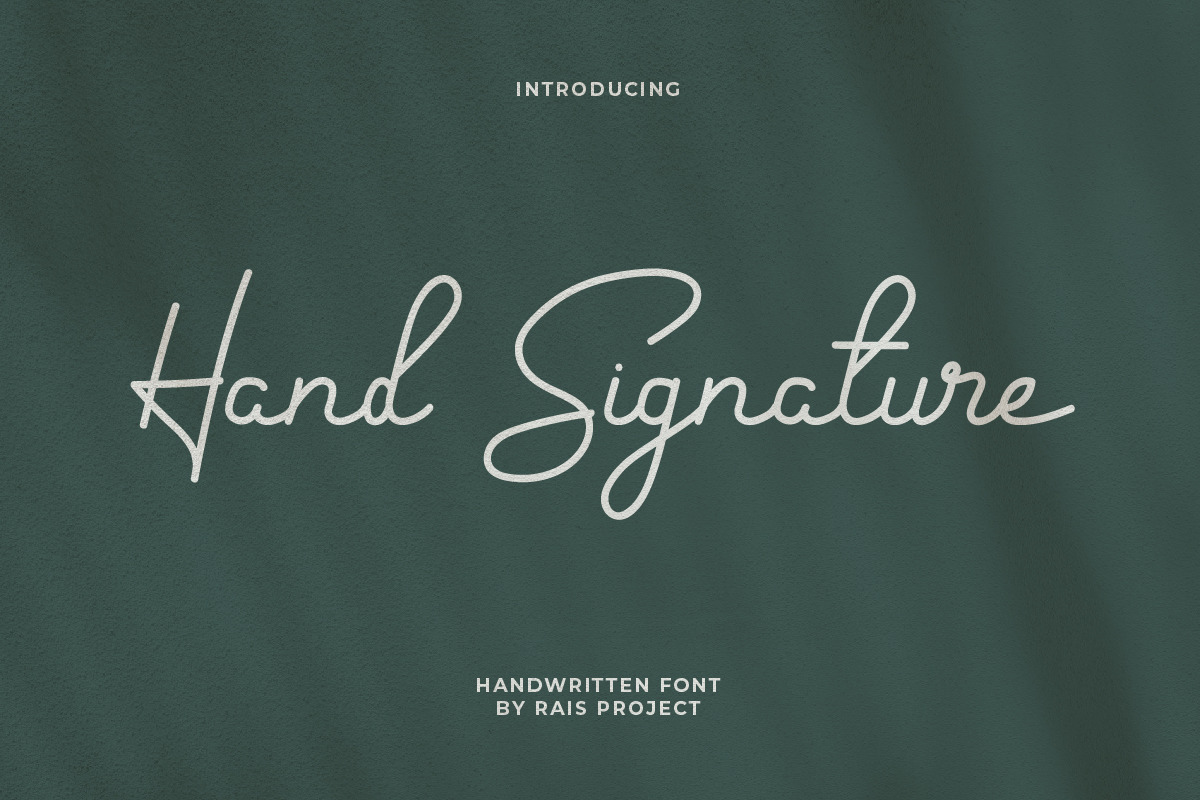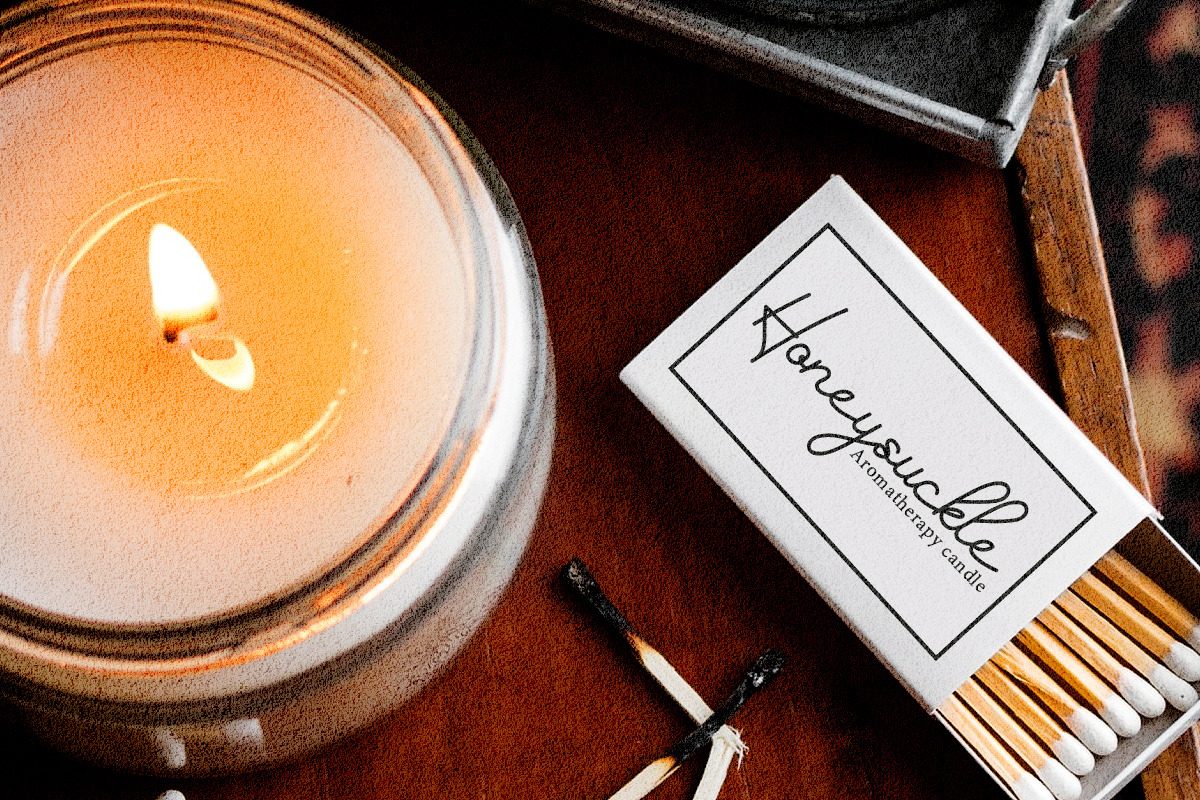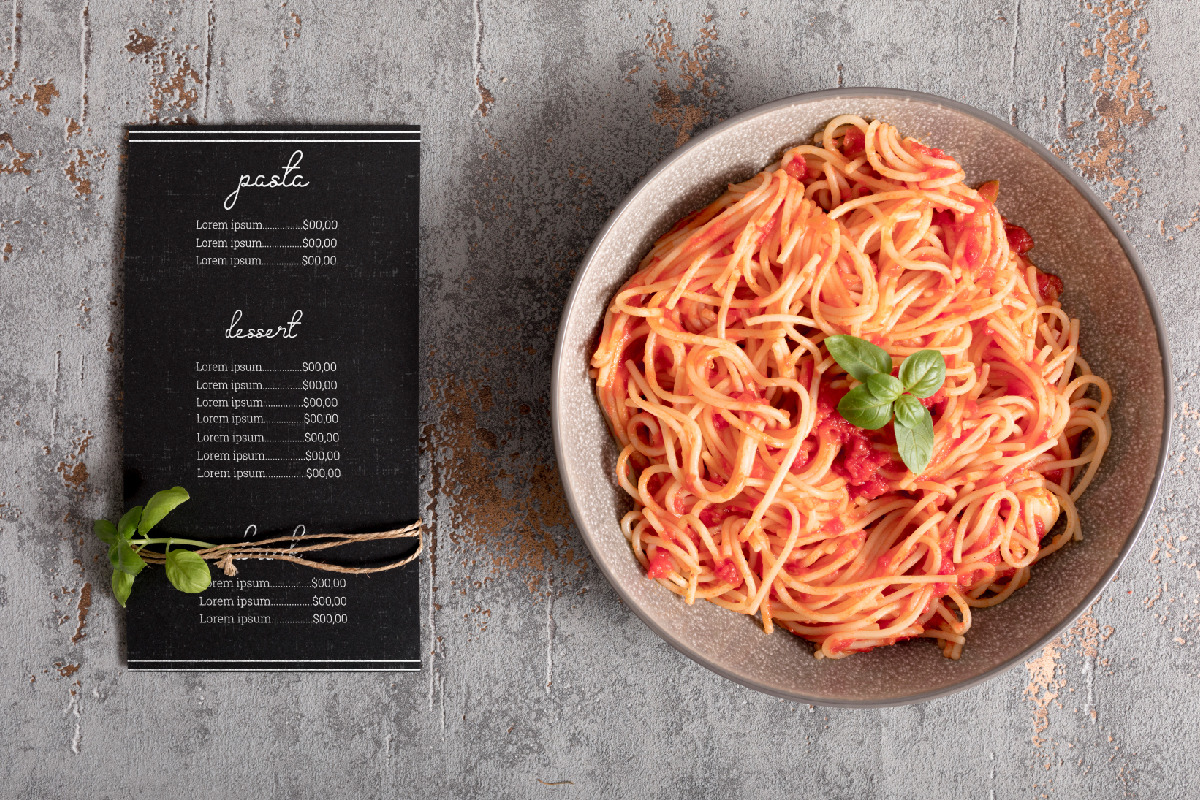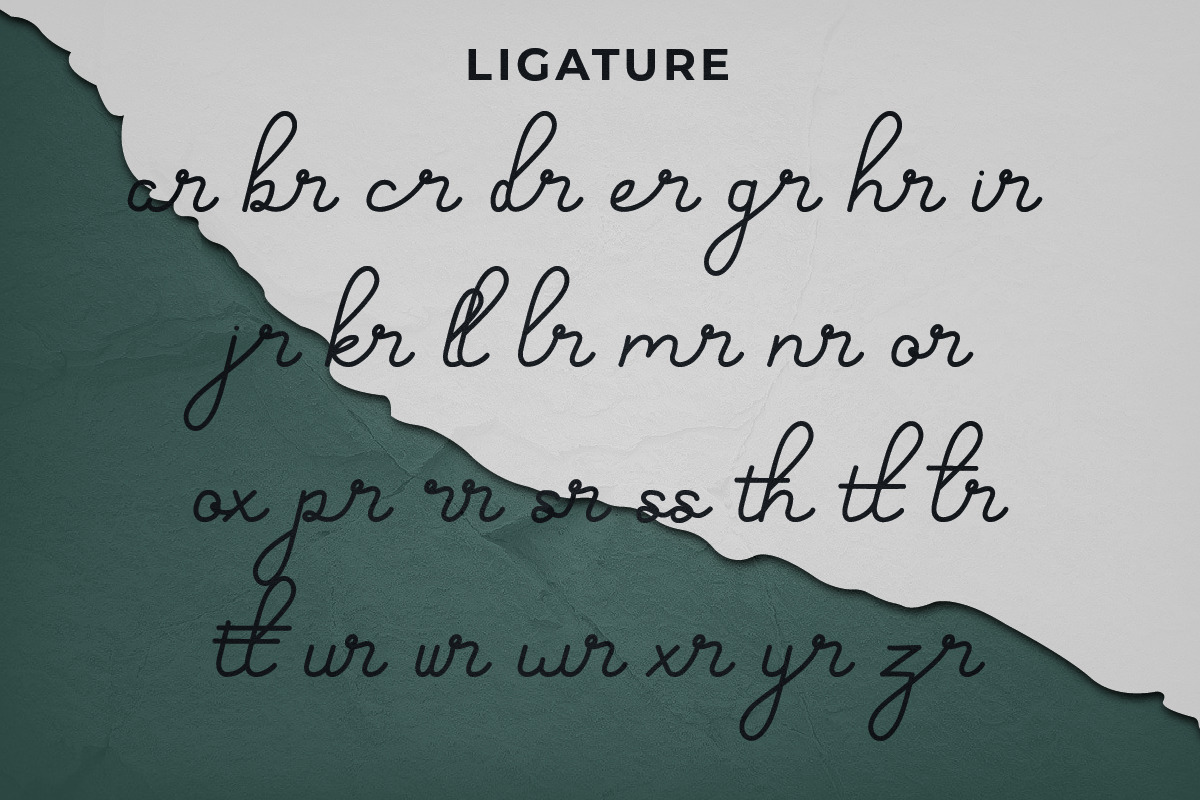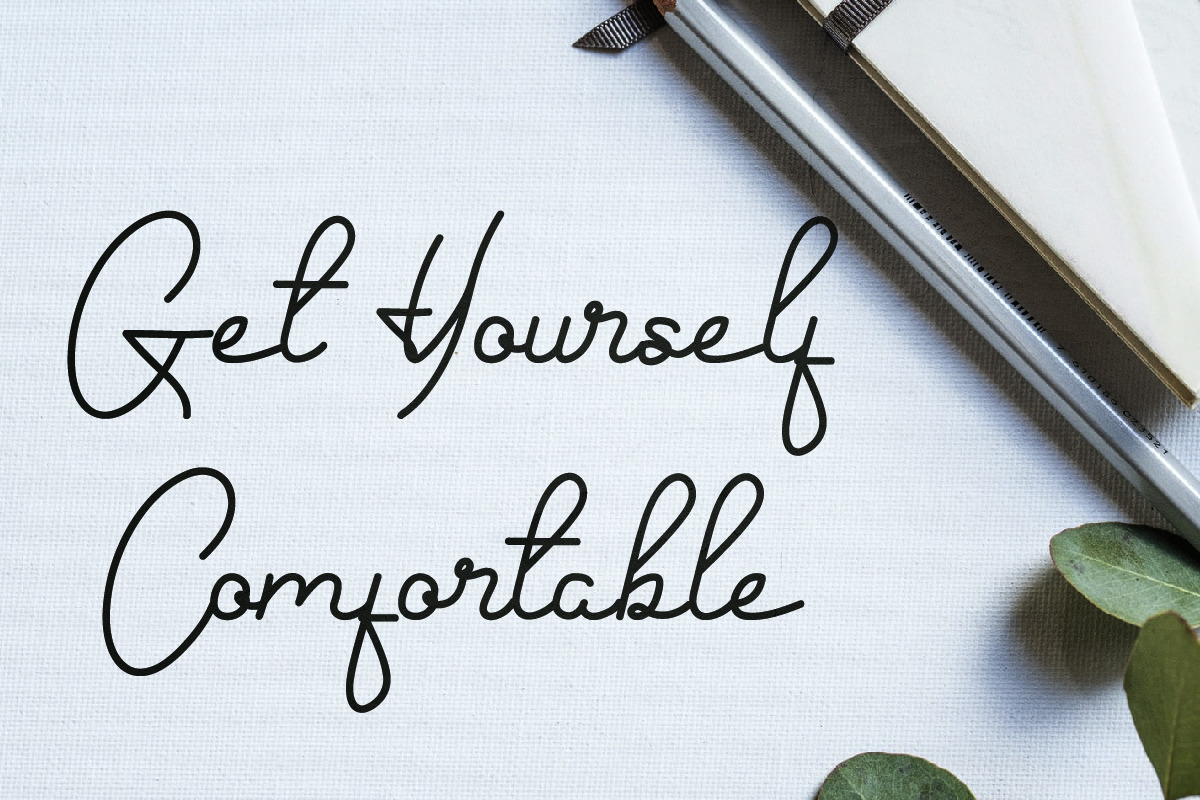
Hand Signature Handwriting Font
Hand Signature is a monoline signature handwriting script font. It has beautiful uppercase, lowercase letters, numerals, a range of punctuation and ligatures. Great for photography, watermark or and any projects that need handwriting style.
Hand Signature handwriting Font includes full set of gorgeous uppercase and lowercase letters, numerals, a large range of punctuation and ligatures. We made Hand Signature looks simple yet stunning handwritten looks, giving realistic hand-lettered style.